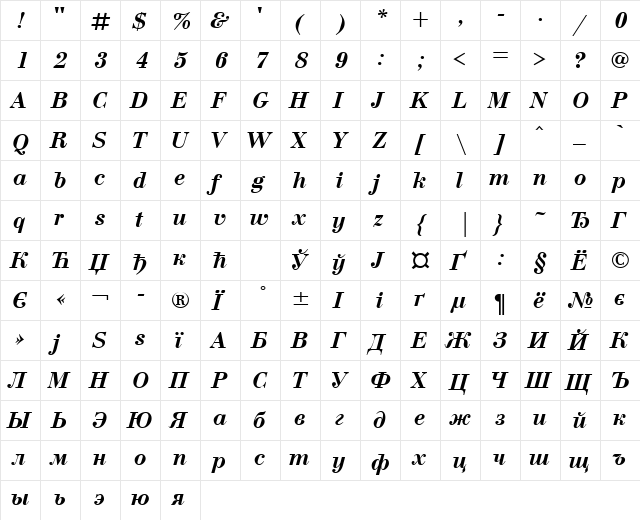
BodoniCTT BoldItalic Font Preview
BodoniCTT BoldItalic
BodoniCTT BoldItalic Font Details
Design Context for BodoniCTT Typeface
BodoniCTT is a composed and adaptable typeface that performs quietly and consistently across a wide range of design contexts. Its italic angle brings a sense of urgency and motion to the letterforms. Its bold stroke weight gives it real presence on the page.
Pro Tip: Try BodoniCTT for annotation and caption copy alongside an upright companion — the contrast in angle creates a dynamic but ordered typographic system.